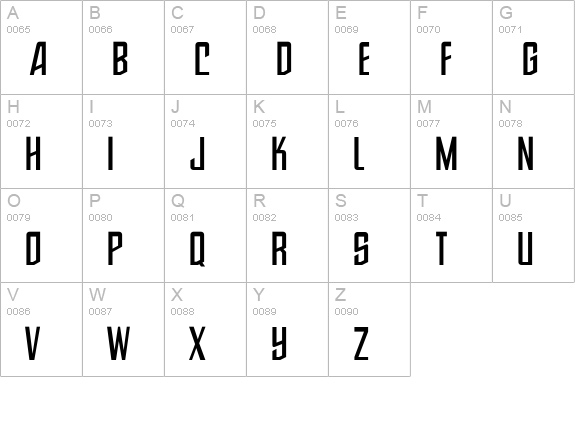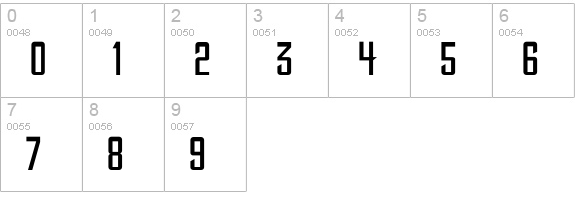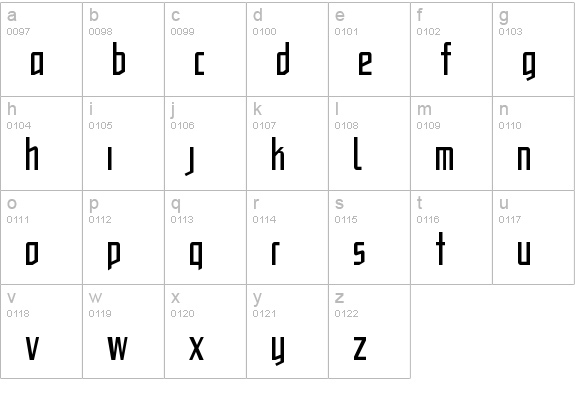
CCToBeContinued-Medium Font Details
CCToBeContinued-Medium is a balanced, medium-weight variant in the CCToBeContinued typeface family \xE2\x80\x94 well suited to sub-headlines, navigation, and balanced editorial work.
Introducing CCToBeContinued-Medium font, a versatile and stylish typeface that is sure to make your designs stand out. With its modern yet classic look, this font is perfect for a wide range of design projects, from logos to posters to branding materials. CCToBeContinued-Medium font features a medium weight that strikes the perfect balance between boldness and elegance, making it ideal for both headlines and body text. Its clean lines and smooth curves give it a professional and polished appearance that will elevate any design. Best of all, CCToBeContinued-Medium font is completely free to download at FontsMarket.com. So whether you're a seasoned designer looking to refresh your font collection or a beginner searching for the perfect typeface for your next project, CCToBeContinued-Medium font is the perfect choice. Download it today and see the difference it can make in your designs!